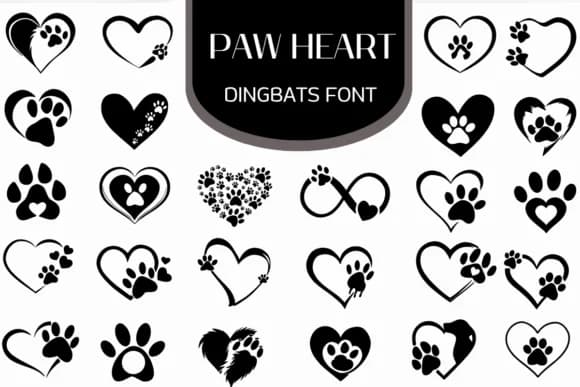
Paw prints and hearts are arranged into a playful, hand-drawn dingbats collection that brings instant personality to any design. Paw Heart, created by Heartcraft Atelier, delivers the kind of warmth that speaks directly to pet lovers across all demographics and design sensibilities.
This font excels at decorating pet-themed greeting cards, adding visual charm to dog groomer business cards, or creating adoption agency social media graphics that cut through the feed. You can also use these symbols on custom product labels for small pet supply shops, in scrapbooking layouts where you want to highlight and beautifully frame dog and cat photos, or scattered throughout planner pages and bullet journals as dividers and accent marks that keep things organized while adding visual interest and personality. The collection comes in both OTF and TTF formats, and an outline variant is included if you want to add your own color fills for a personalized touch.
This collection speaks to designers and makers working with pet brands, animal-focused stationery, boutique pet product packaging, and cute merchandise of all kinds. You can find Paw Heart on Creative Fabrica whenever you're ready to bring character and charm to your next project.
Paw Heart Font is a versatile dingbats font that works for both headings and body text. Pair it with a contrasting sans-serif or serif font to add visual interest and a clear distinction between titles and body copy.